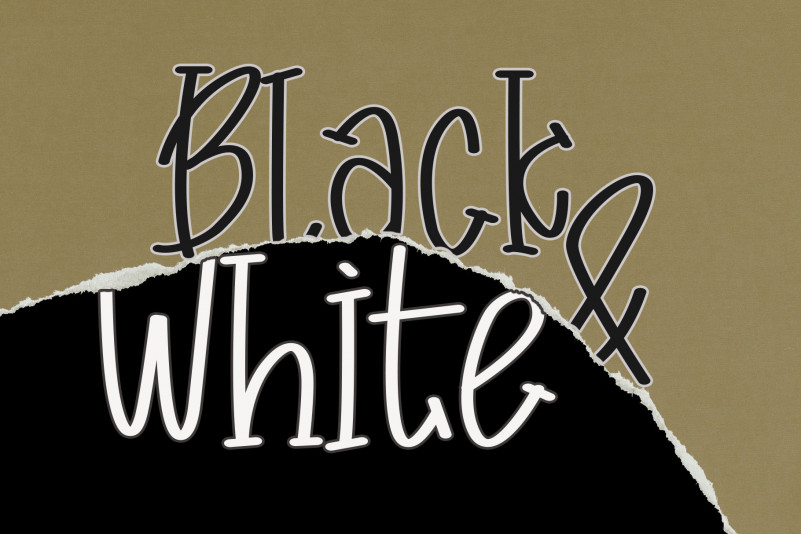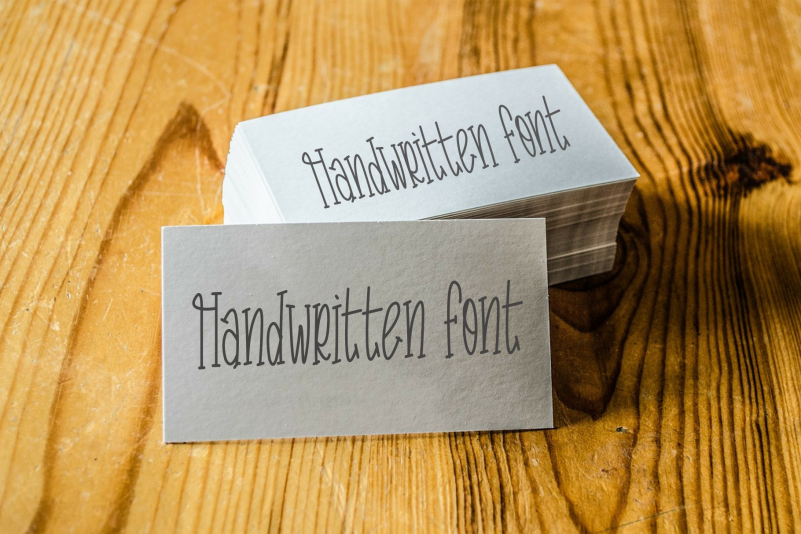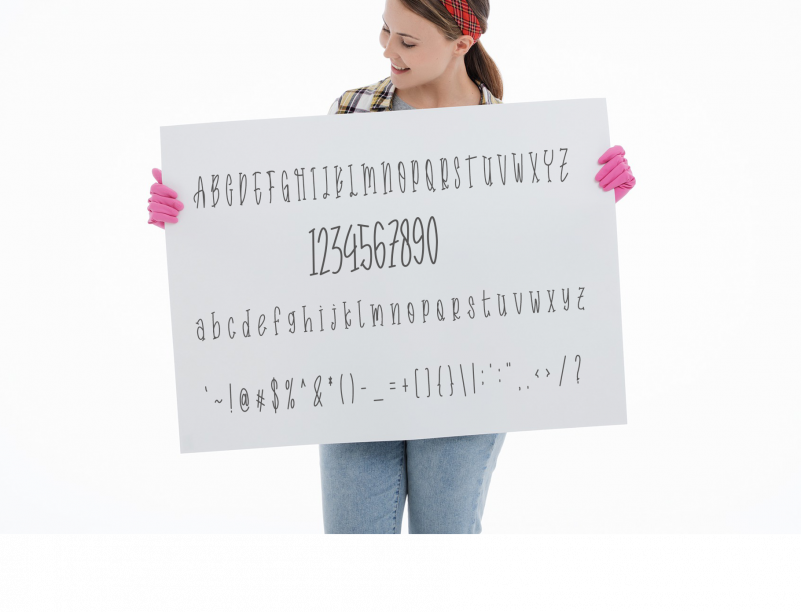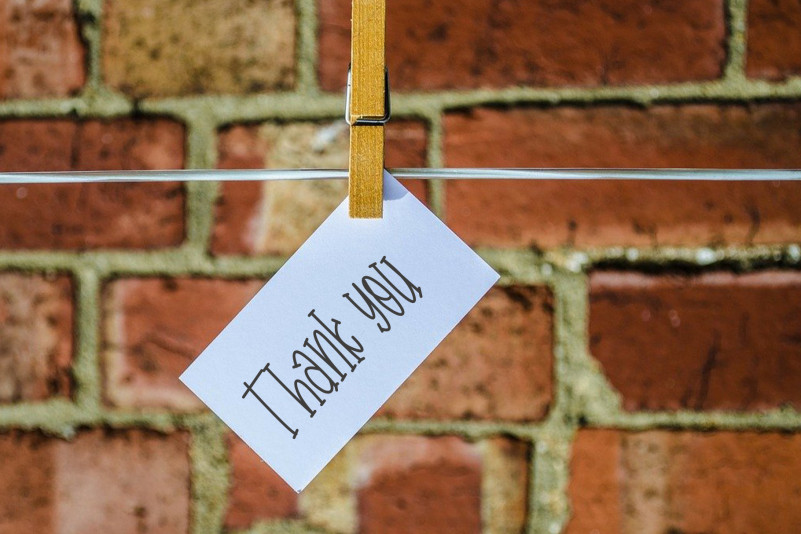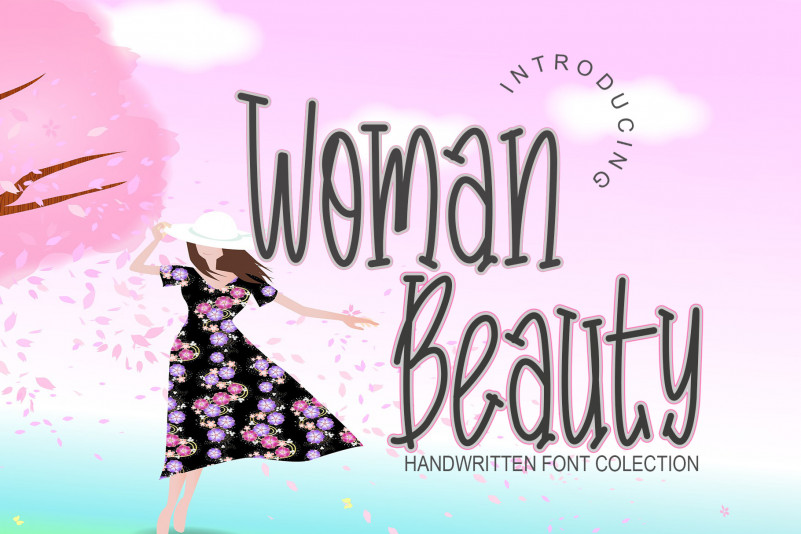
Woman Beauty Font
Woman Beauty Display Font
This is a delicate and elegant handwritten font. Its distinct and well rounded letters make this font a masterpiece.